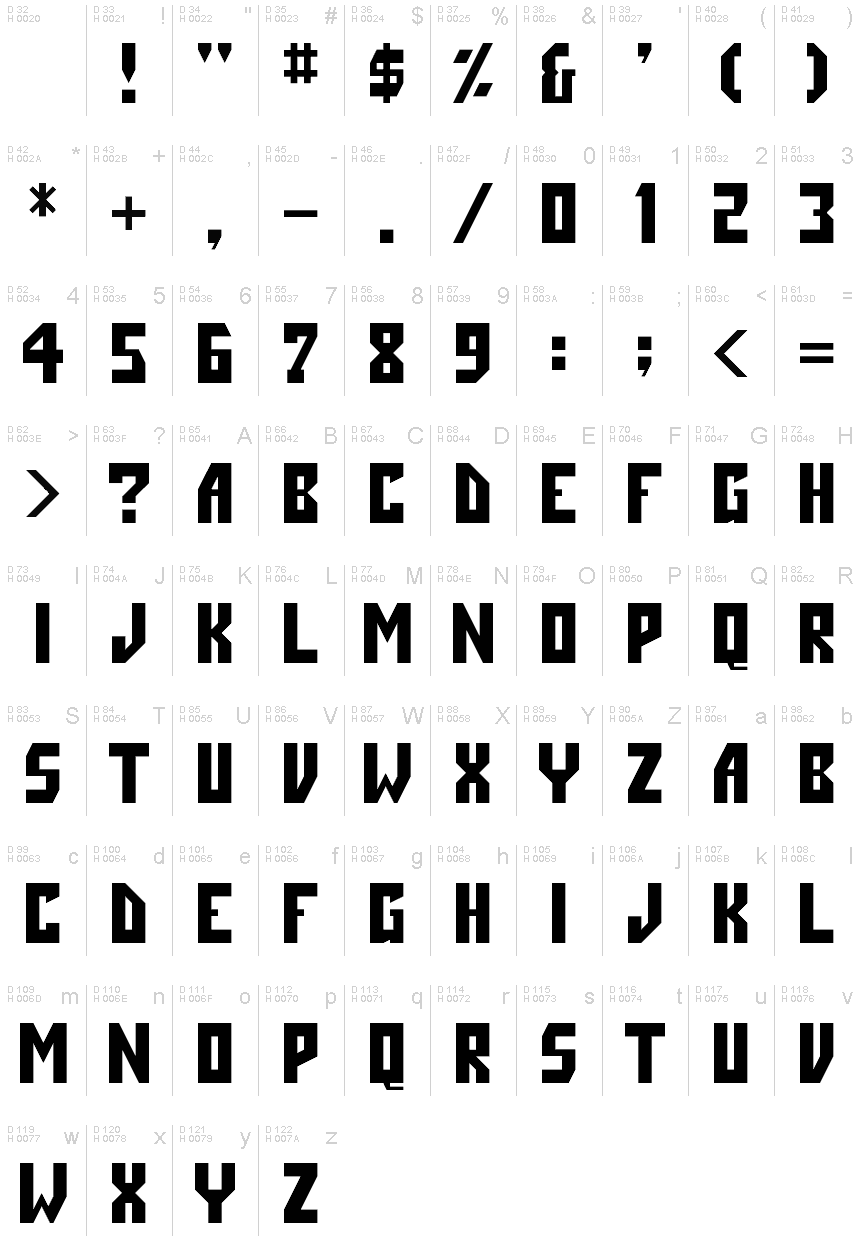
Angle Regular
Designer description: Angle font from The Print Shop Companion.
This was a tricky one. Going pixel for pixel from C64 screen grabs would have made this thing huge - it could have been done but I didn't want to do a major project here. I ended up eyeballing the letters and doing it freehand, roughly 5x9 but a few characters are 6x9. This also let me work more with the angled pieces (no pun intended) in Fontstruct as I want to learn them better.
As you may have guessed, this is an unshadowed version of Pioneer. Print Shop's fonts were more often than not replicas of commercial fonts. I wasn't able to locate a solid Pioneer so this will do for now - plus it only has a descender on the Q. Only characters in the Print Shop font have been produced.